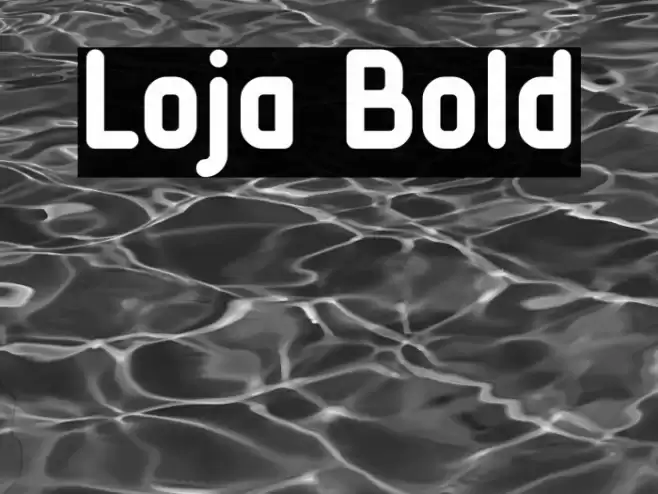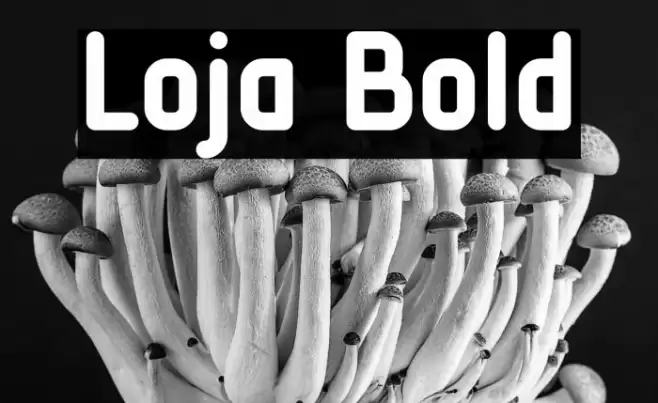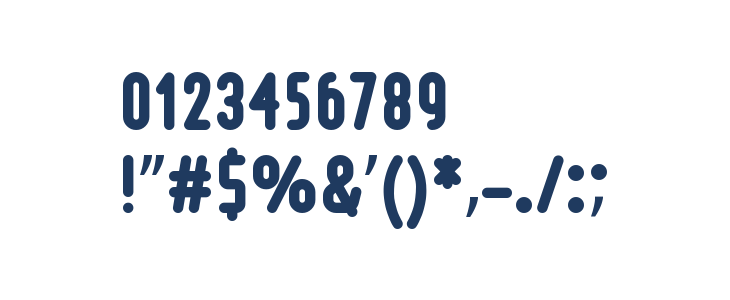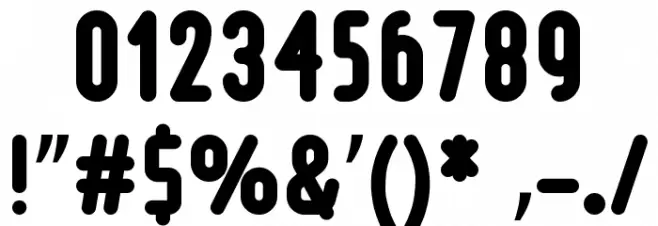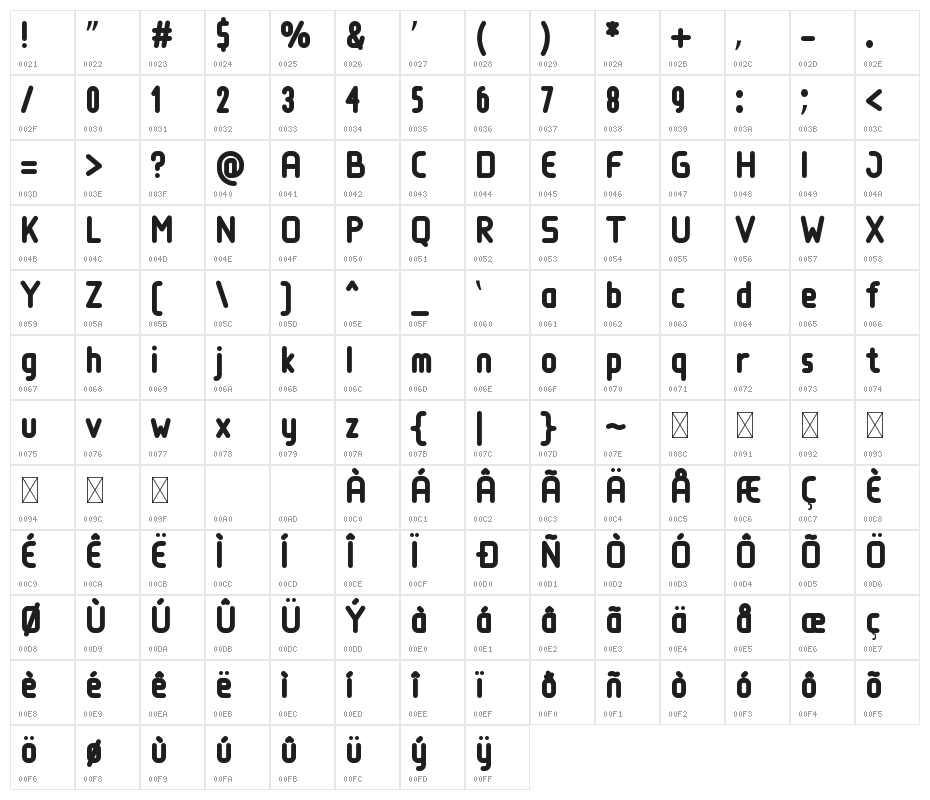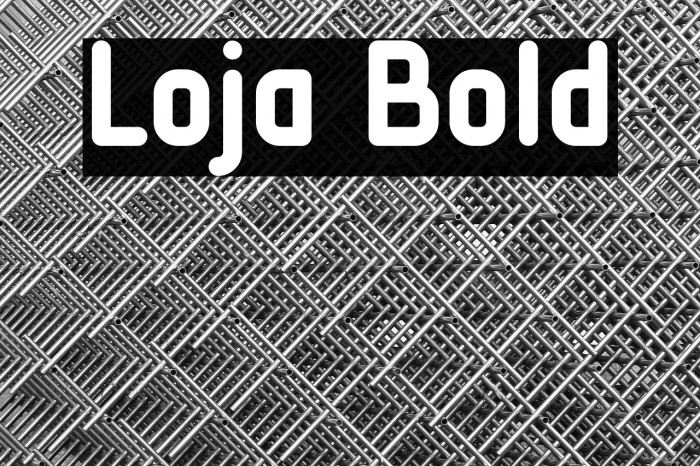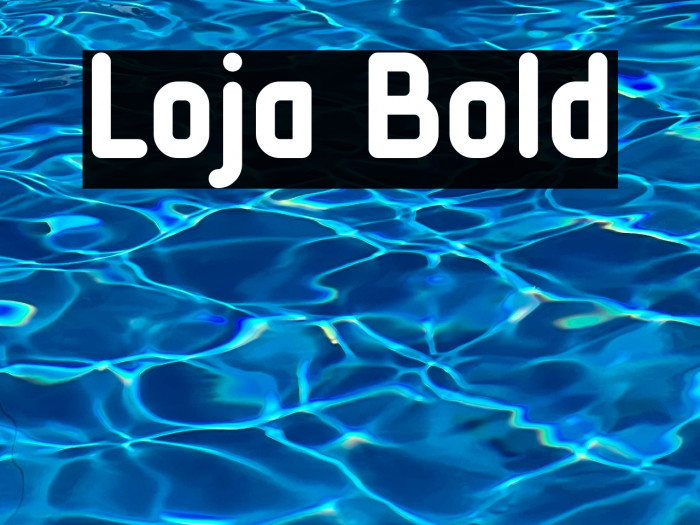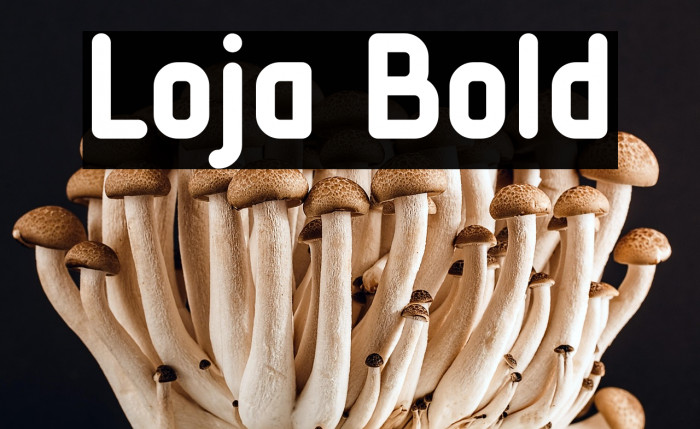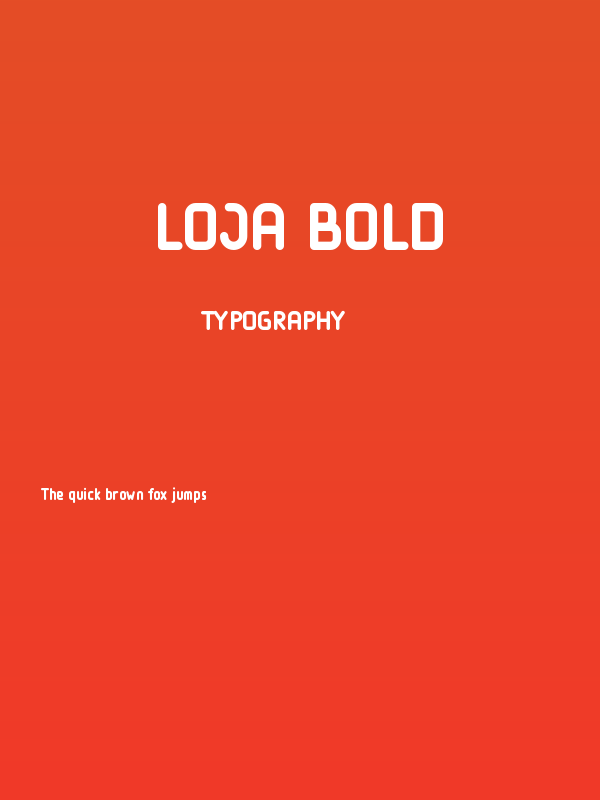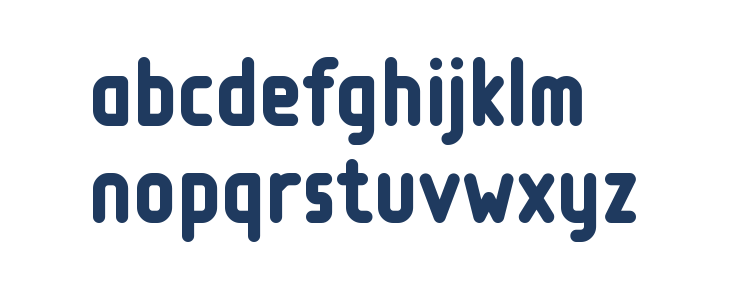
Loja Bold Font
Loja Bold Description
This font features a bold and rounded style with a modern and friendly appearance. The characters are uniformly thick, providing a consistent and solid look across both uppercase and lowercase letters. The numerals and special characters maintain the same boldness, ensuring readability and impact. The rounded edges soften the overall feel, making it approachable and versatile for various design needs. Its geometric structure and even stroke width contribute to a clean and contemporary aesthetic, suitable for both digital and print media.
- Proposed Projects: Ideal for branding, headlines, posters, and digital media where a strong, approachable presence is desired.